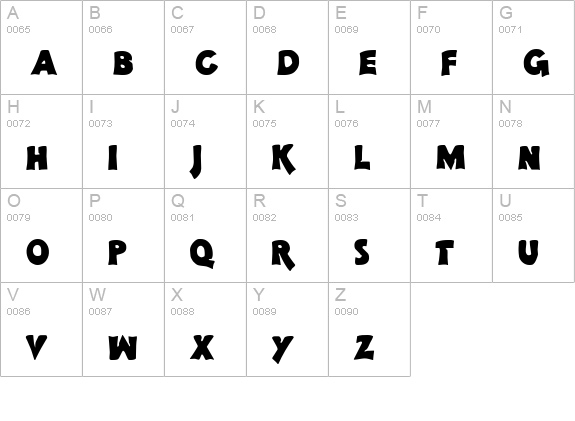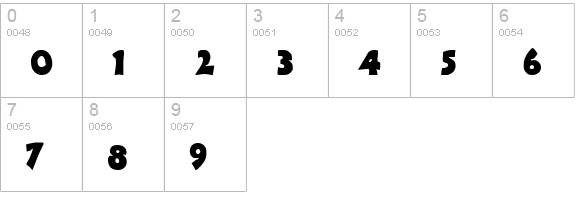
Pachyderm Font Details
Introducing Pachyderm font, a truly magnificent typeface that embodies the strength and grace of the mighty pachyderm. This font is a stunning representation of power, with its bold and robust letterforms that captivate the eye and command attention. Pachyderm font seamlessly combines elegance and authority, making it the perfect choice for a wide range of design projects. Whether you're creating a striking logo, designing an eye-catching poster, or crafting a powerful headline, this font will elevate your work to new heights. One of the most remarkable aspects of Pachyderm font is that it is freely available to download at FontsMarket.com. This means that you can experience the sheer brilliance and versatility of this typeface without any restrictions or limitations. FontsMarket.com takes pride in offering a vast collection of high-quality fonts, and Pachyderm font is no exception. With its sleek and polished aesthetics, Pachyderm font exudes an air of sophistication and professionalism. Its clean lines and well-defined contours ensure readability at any size, making it suitable for both print and digital mediums. Whether you're designing for a luxury brand, a corporate entity, or an artistic project, this font will effortlessly convey your message with style and impact. The versatility of Pachyderm font is further enhanced by its extensive language support. With a wide range of characters and accents, this font accommodates various languages and allows for seamless integration into multinational projects. In conclusion, Pachyderm font is an exceptional typeface that combines strength, elegance, and versatility. Its freely available download at FontsMarket.com ensures that designers and creatives have access to this remarkable font without any cost. So why wait? Experience the commanding presence and artistic expression of Pachyderm font today and take your designs to a whole new level.